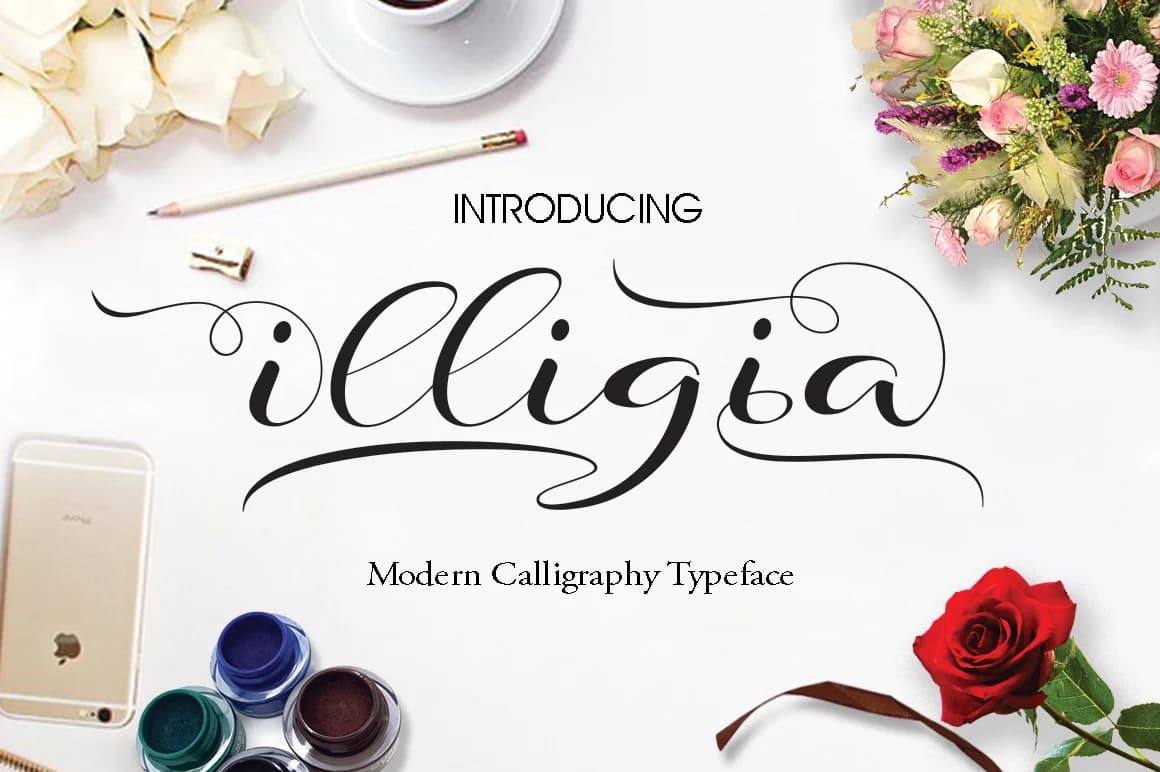
Illigia by JhoelDesign is a handwritten script font that captures the organic charm of pen-to-paper lettering with authentic, flowing letterforms. Designed with careful attention to natural rhythm and artistic expression, this typeface brings genuine character to digital projects while maintaining legibility. With over 430 unique glyphs built into the design, Illigia offers extensive character support for creative versatility, including multiple alternates and stylistic variations that allow designers to create truly personalized, hand-lettered effects in their work.
The natural flow of Illigia makes it ideal for wedding invitation suites where elegance combined with personal warmth sets the tone, handmade greeting cards that need genuine artistic character, boutique product labels seeking a crafted and artisanal aesthetic, and DIY journal covers for those who value the beauty of authentic handwriting. Whether you're designing delicate stationery, creating custom packaging, or adding a personal touch to sophisticated branding projects, this script delivers the handwritten quality that modern designers appreciate and seek out.
Illigia works beautifully in both formal and creative contexts, adapting effortlessly from traditional letterpress aesthetics to contemporary social media graphics and digital publications. The extensive glyph library ensures you'll find the perfect character variations for any project you envision. Discover how Illigia can bring authentic handwritten warmth to your design work on Creative Fabrica.
Illigia Font is a script font that shines as a display or heading face. Pair it with a clean sans-serif or serif font for body text β the contrast creates a clear hierarchy while the two styles stay balanced and easy to read.
Illigia Font
by JhoelDesign